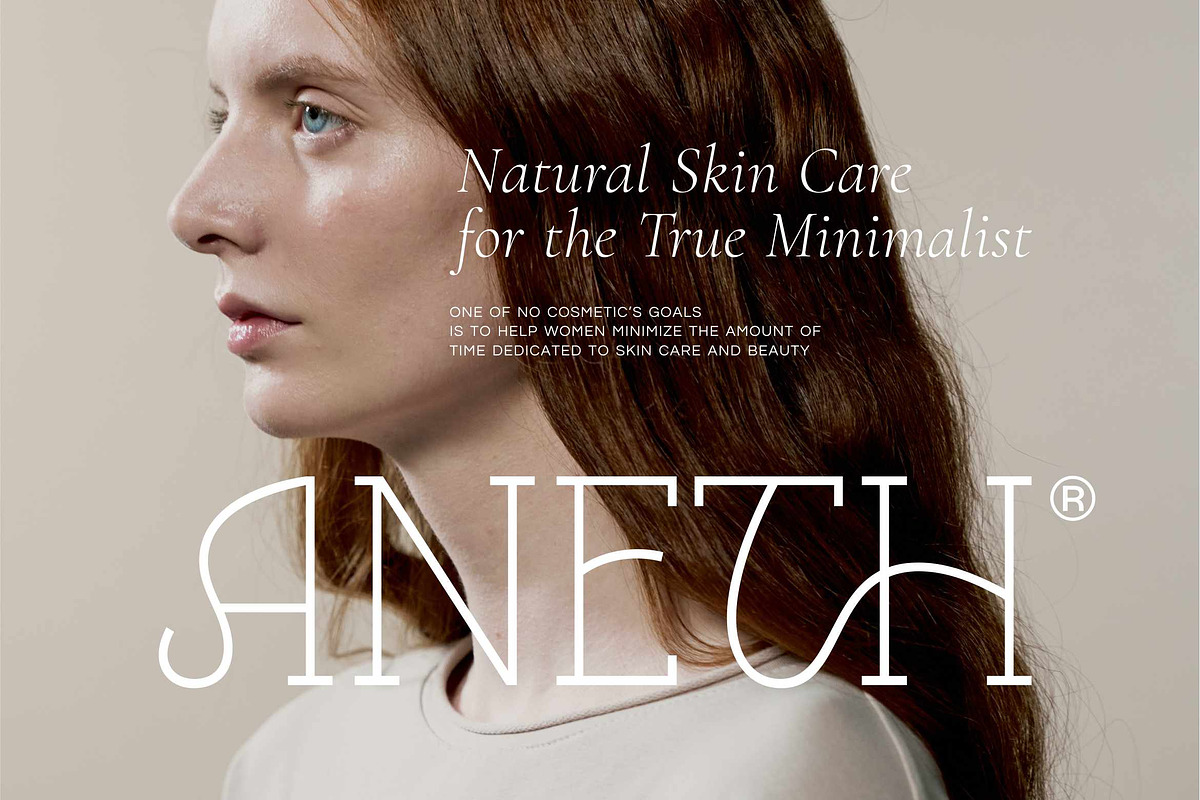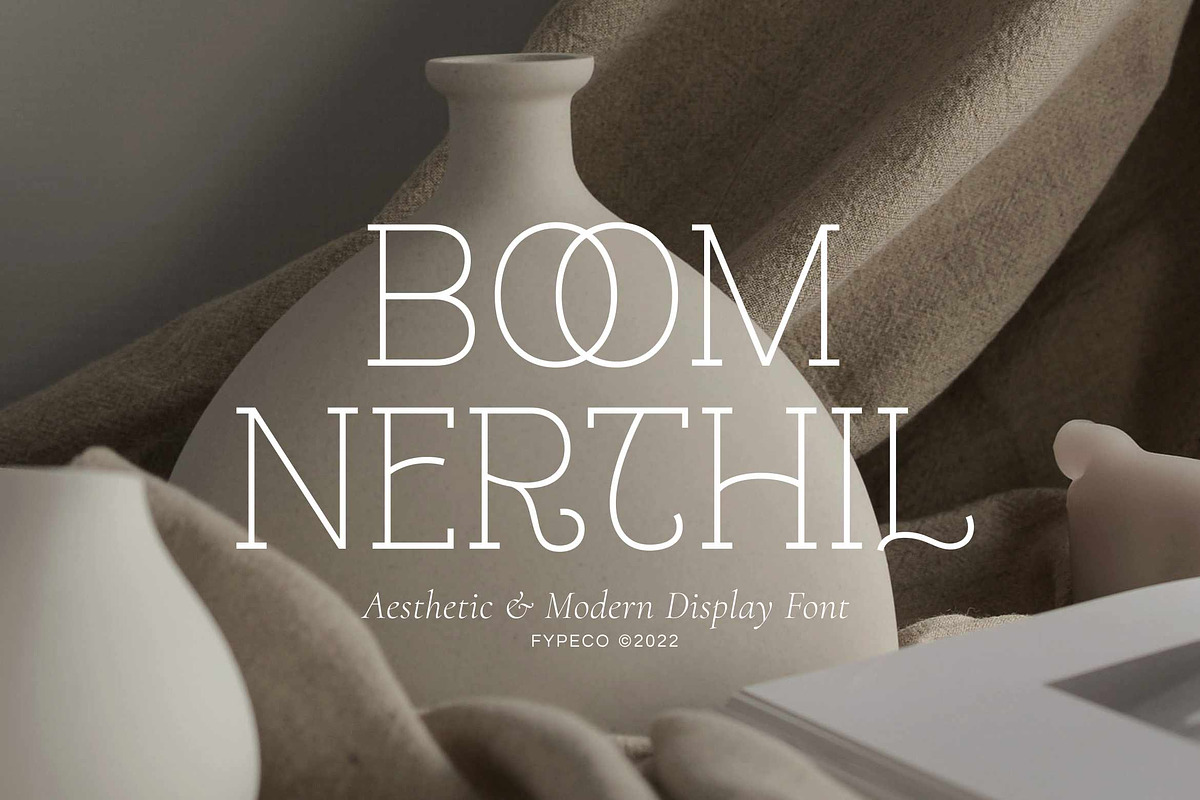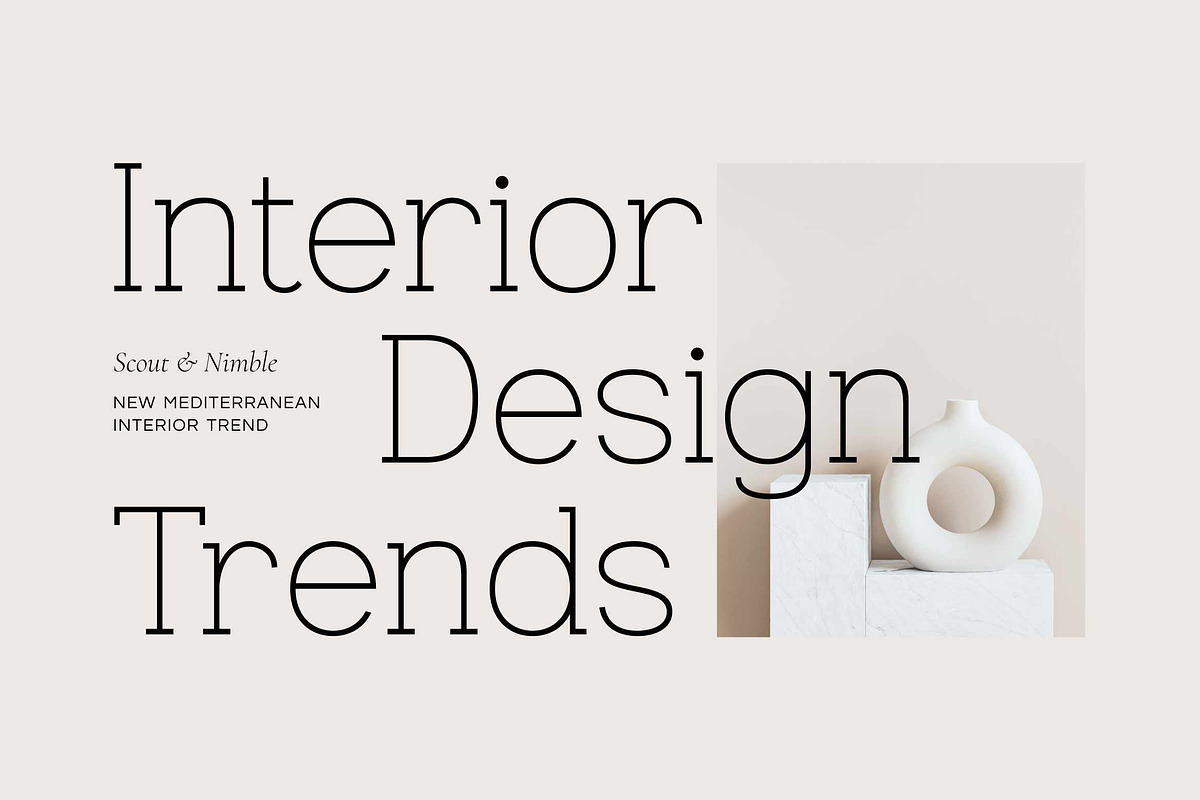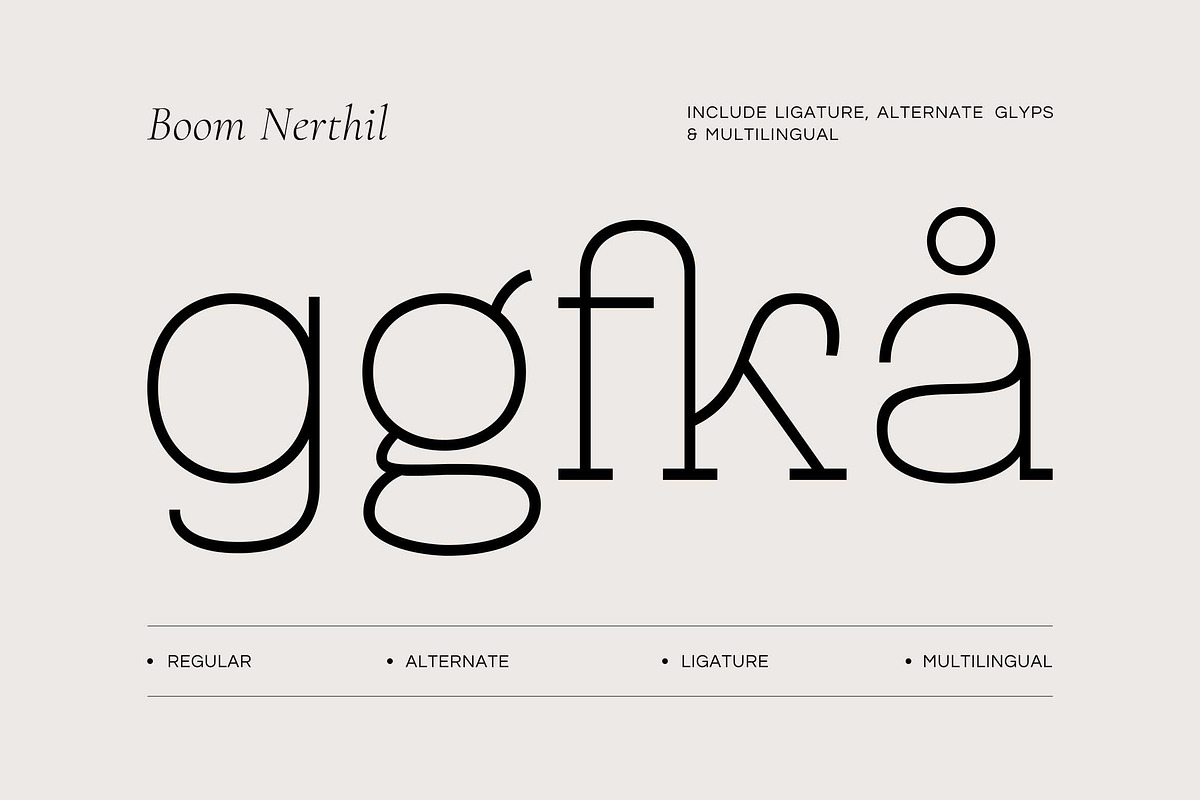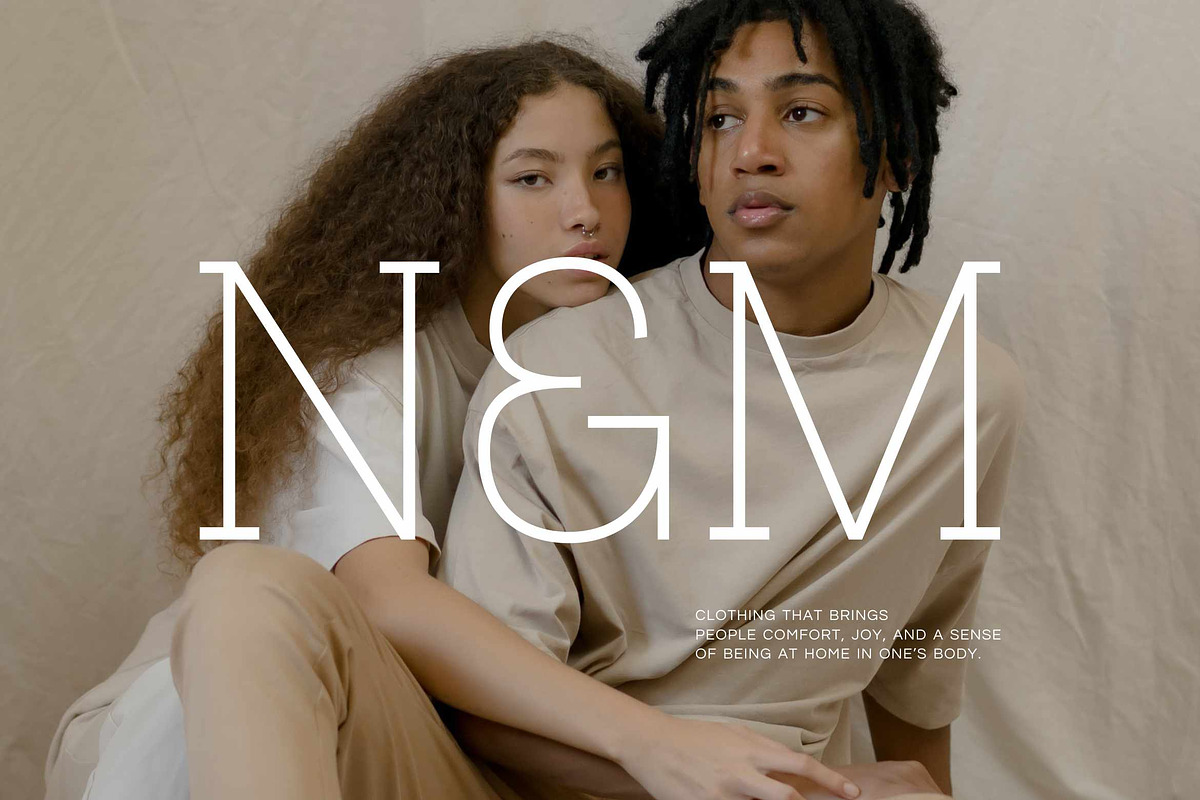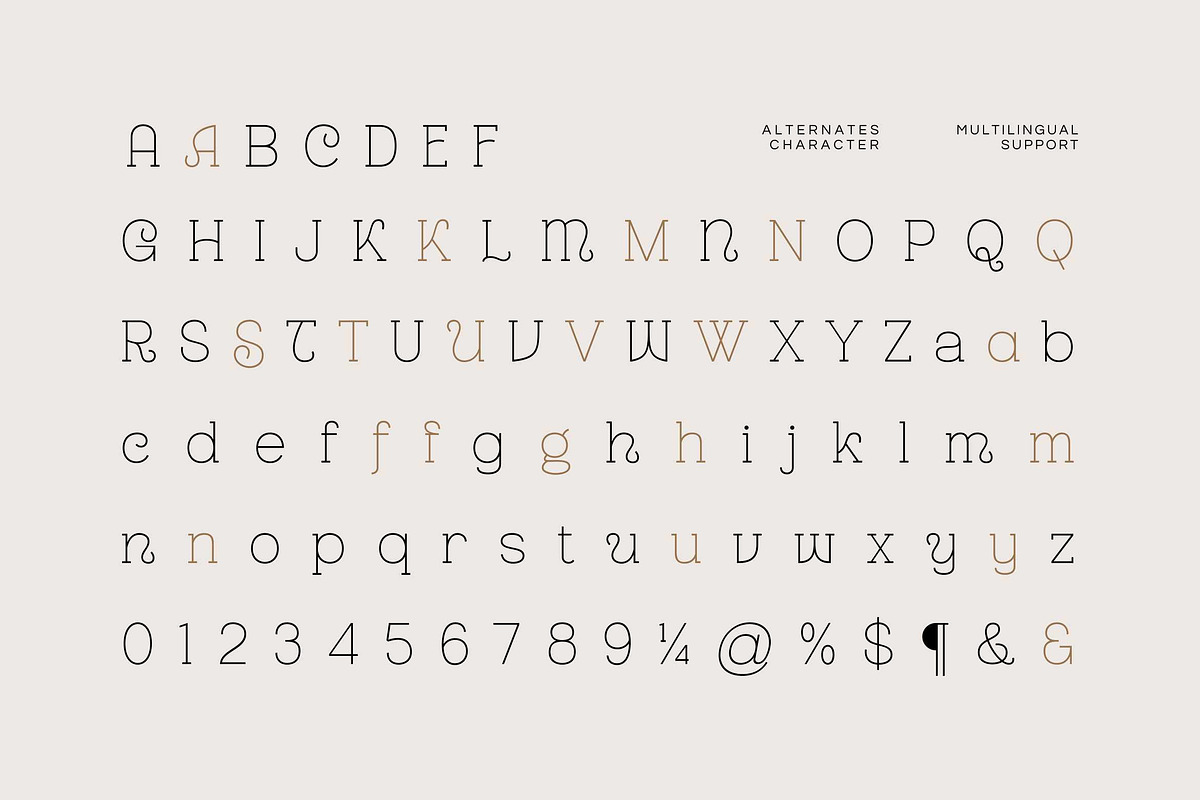
Boom Nerthil - Aesthetic & Modern
Boom Nerthil is aesthetic and modern display font with with alternatives and ligatures that will make your project stunning and stand out! The modern style style also make for a stunning logos, quotes, posts, blog posts. branding projects, magazine imagery, and much more.
- Alternatives